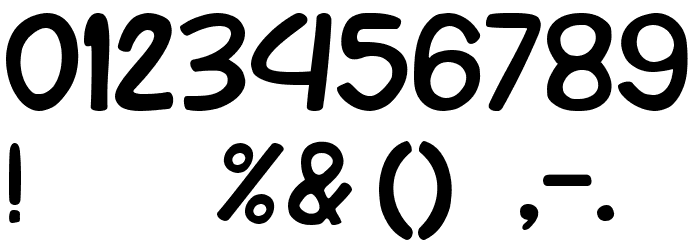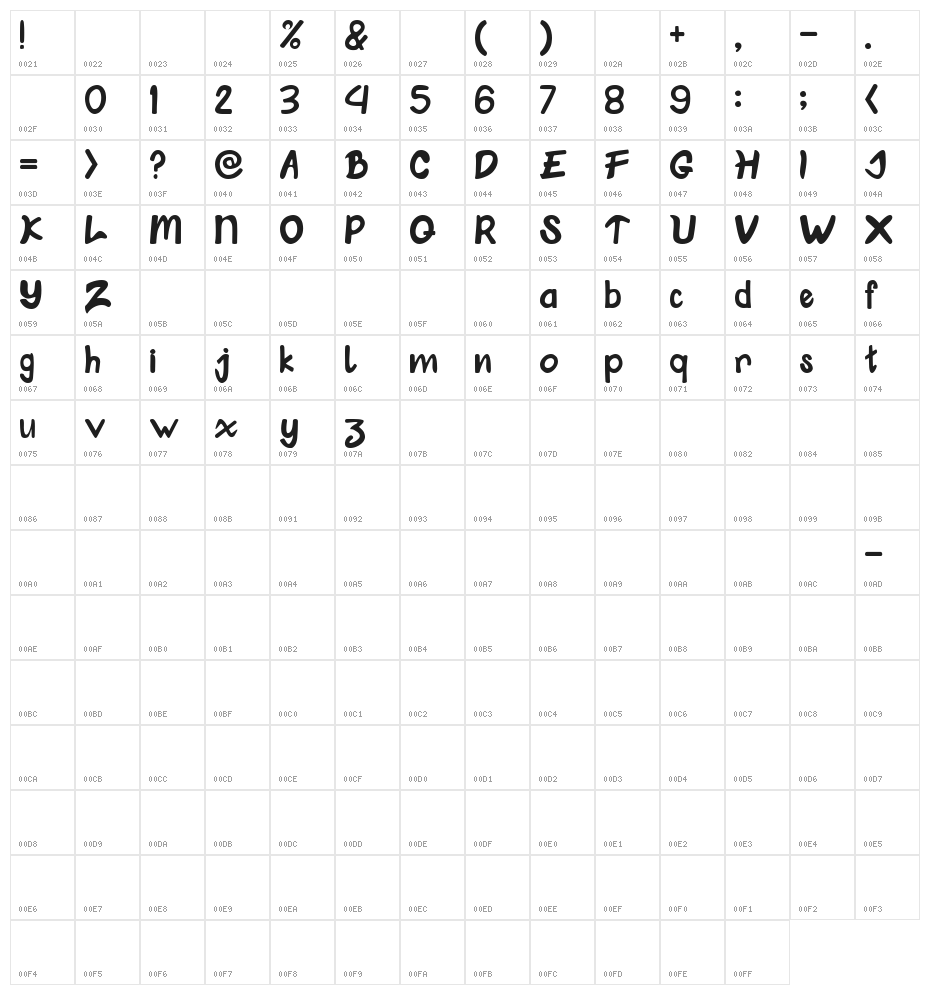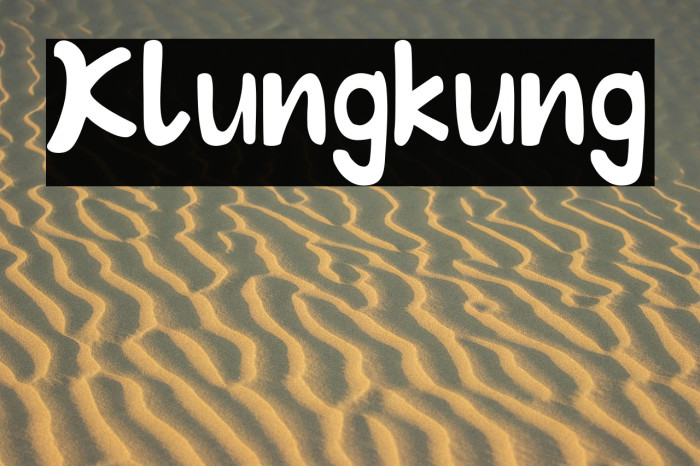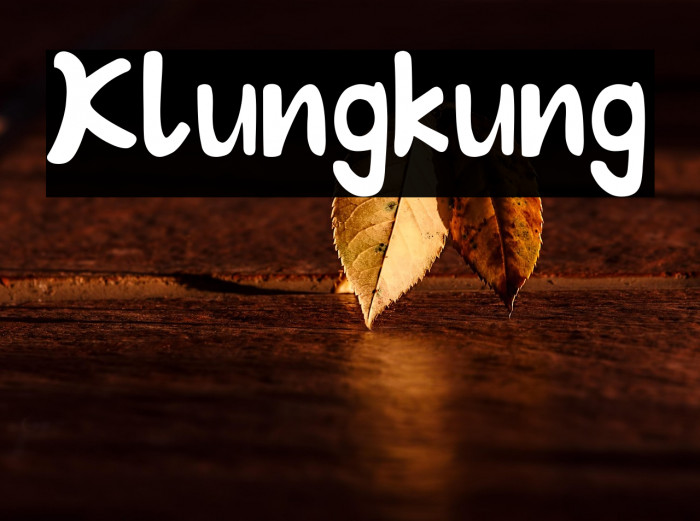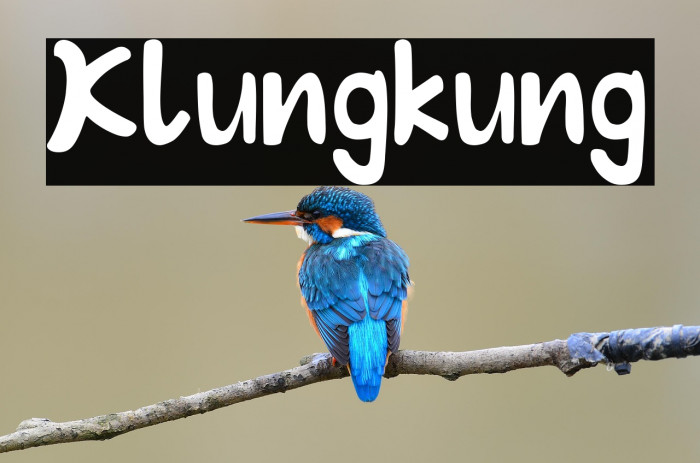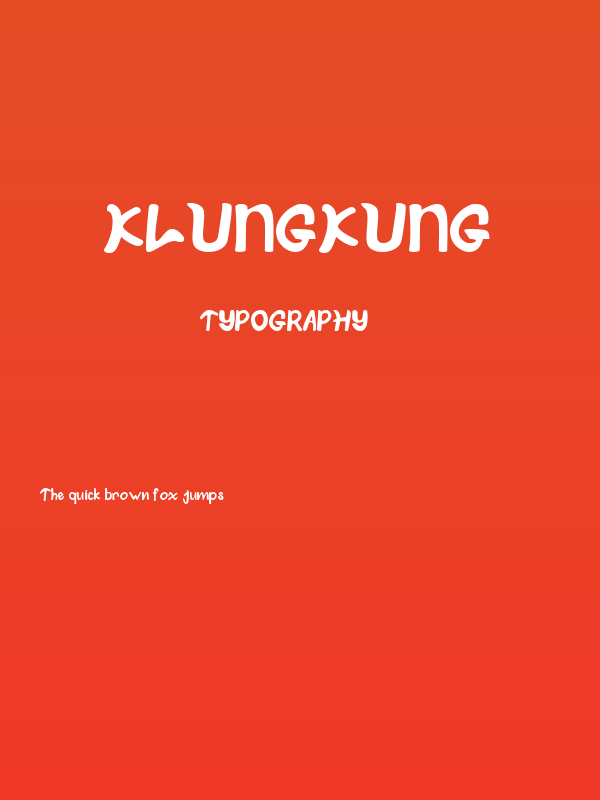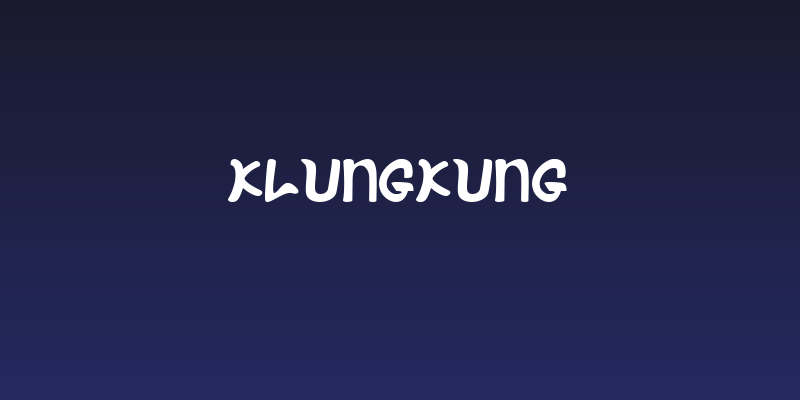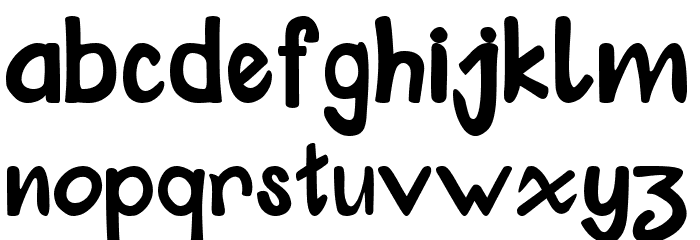
Klungkung Font
Klungkung Description
This font features a playful and bold style with rounded edges and a hand-drawn appearance. The letters are slightly irregular, giving it a whimsical and casual feel. The uppercase and lowercase characters maintain a consistent thickness, contributing to a cohesive look. The numerals and special characters follow the same playful design, making it suitable for creative and informal projects. Its bold strokes and rounded forms make it highly legible, even at smaller sizes, while still retaining its unique character.